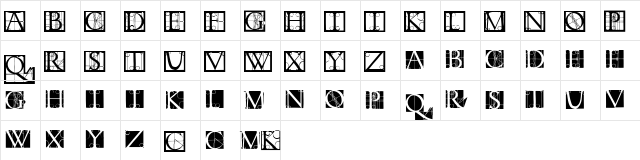
TornielloInitials Regular
Copyright: Constructed Renaissance Majuscles 1517, Francesco Torniello, vectorisation: (c) Manfred Klein 6.2004
Design Context for TornielloInitials
TornielloInitials is a composed and adaptable typeface that performs quietly and consistently across a wide range of design contexts.